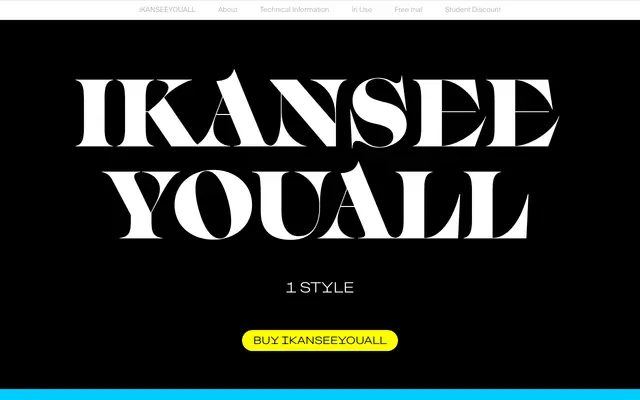
IKanSeeYouAll
An expressive display typeface by Ian Party for Swiss Typefaces, engineered by Christoph Koeberlin.
Designed by Ian Party under the Swiss Typefaces banner, IKanSeeYouAll is an expressive display face with font engineering by Christoph Koeberlin. The page provides limited detail on weights or stylistic variants, but the typeface sits within Swiss Typefaces' broader output of distinctive, character-driven designs. Art direction is credited to Swiss Typefaces themselves, suggesting a closely collaborative origin.
The name and Swiss Typefaces' broader catalogue suggest an expressive, idiosyncratic display typeface; the unconventional naming convention points toward a distinctive, non-neutral design intent.